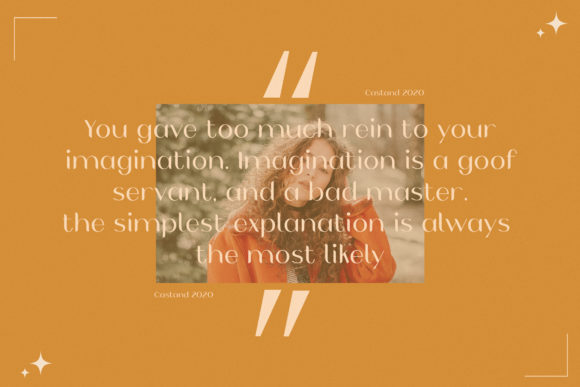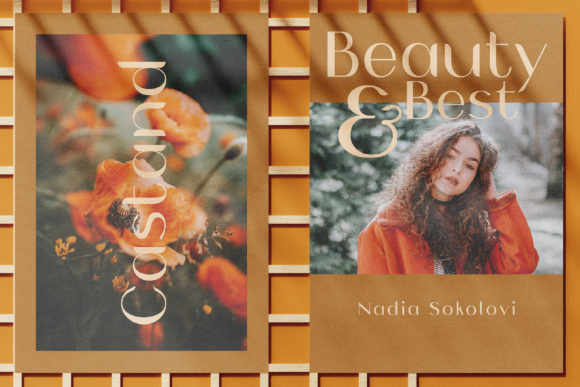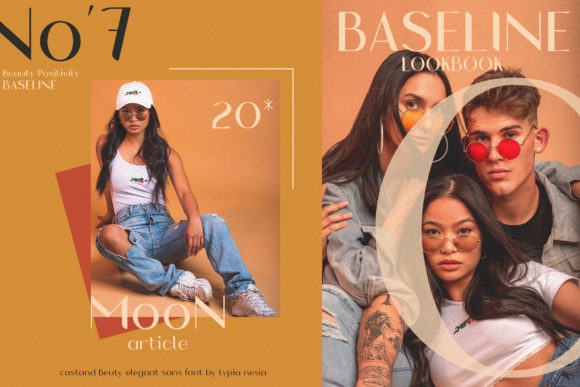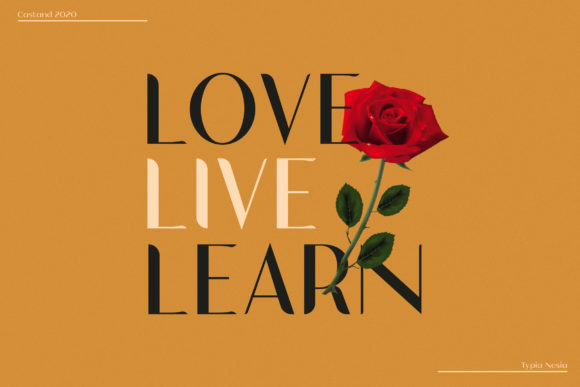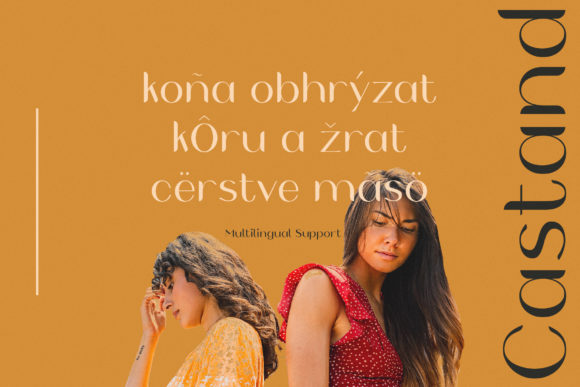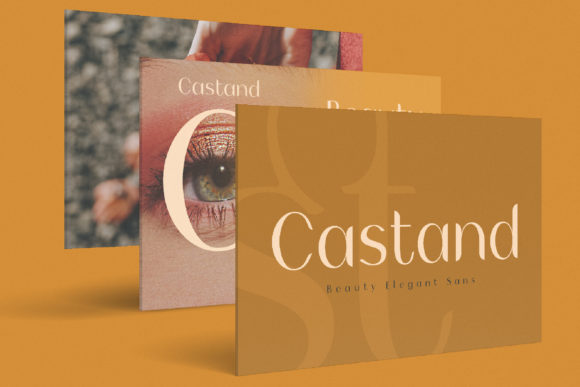
Introducing Castand Font: Elevate Your Designs with Elegance
In the world of typography, fonts play a pivotal role in conveying messages, evoking emotions, and creating lasting impressions. For designers and crafters seeking a stylish and delicate touch, Castand Font emerges as a shining star. This sans serif font boasts a clean, thin, and smooth vibe, making it an ideal choice for a wide array of design projects.
The Essence of Castand Font
Castand Font is characterized by its sleek and modern aesthetic. Its sans serif design ensures a clean and minimalist look, which is versatile enough to complement various design themes. The thin and smooth lines of Castand add a touch of elegance, making it perfect for projects that demand sophistication and poise.
One of the standout features of Castand Font is its incredible versatility. Whether you’re working on branding materials, product packaging, invitations, quotes, t-shirts, labels, posters, or logos, Castand seamlessly integrates into any design. Its adaptability makes it a go-to font for designers who wish to add a refined touch to their creations.
Suitable for Various Design Projects
- Branding: Establish a strong brand identity with Castand’s elegant and professional look.
- Product Packaging: Make your products stand out on the shelves with sophisticated packaging designs.
- Invitations: Create beautiful and inviting event invitations that set the tone for your special day.
- Quotes: Highlight meaningful quotes with a stylish font that adds depth and emotion.
- T-Shirts: Design eye-catching apparel with a font that speaks elegance.
- Labels: Add a professional touch to your product labels, making them more appealing to potential customers.
- Posters: Craft compelling posters for events, promotions, or awareness campaigns with a font that captures attention.
- Logos: Develop memorable logos that embody the essence of your brand, with Castand’s sleek and modern appeal.
Why Choose Castand Font?
Choosing Castand Font for your design projects comes with numerous benefits. Its stylish and delicate nature ensures your designs are always on point, exuding a sense of sophistication. Moreover, its clean and smooth vibe guarantees readability, making it perfect for both digital and print materials.
Tips for Using Castand Font Effectively
To maximize the potential of Castand Font, consider the following tips:
- Pair with Bold Fonts: Combine Castand with bold fonts for a striking contrast that highlights key information.
- Experiment with Colors: While Castand looks great in black and white, experimenting with colors can add a unique touch to your designs.
- Adjust Line Spacing: Ensure readability by adjusting line spacing according to your design’s requirements.
Castand Font is a game-changer for designers and crafters looking to infuse elegance and sophistication into their projects. Its versatile nature, combined with its stylish and delicate appearance, makes it an invaluable asset in the world of design. Whether you’re creating branding materials, product packaging, or any other design project, Castand Font is sure to elevate your work to new heights.
Embrace the beauty of Castand Font and let your designs speak volumes with elegance and poise.